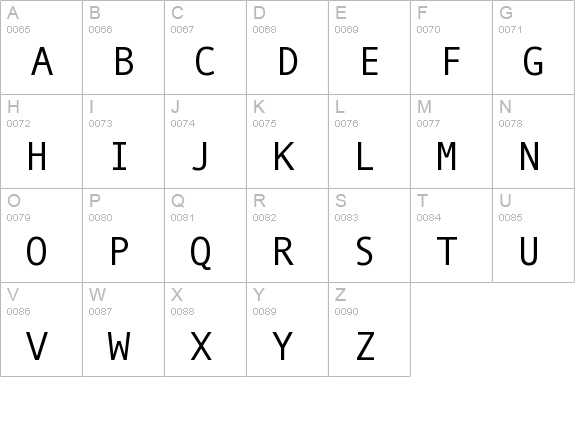
Monotype.com font is a stunning typeface that exudes sophistication and elegance. With its clean lines and timeless appeal, this font is perfect for a wide range of design projects, from branding to editorial design. The versatility of Monotype.com font makes it a must-have for any designer looking to elevate their work to the next level. One of the best things about Monotype.com font is that it is available for free download at FontsMarket.com. This means that you can easily access this beautiful font and use it in your projects without having to worry about any additional costs. Whether you are working on a personal or commercial project, Monotype.com font is the perfect choice for adding a touch of class and style to your designs. Download Monotype.com font today from FontsMarket.com and discover the endless creative possibilities that this exquisite typeface has to offer. Elevate your designs with the timeless beauty of Monotype.com font and make a lasting impression on your audience.